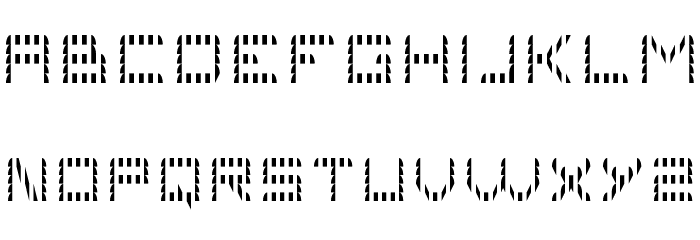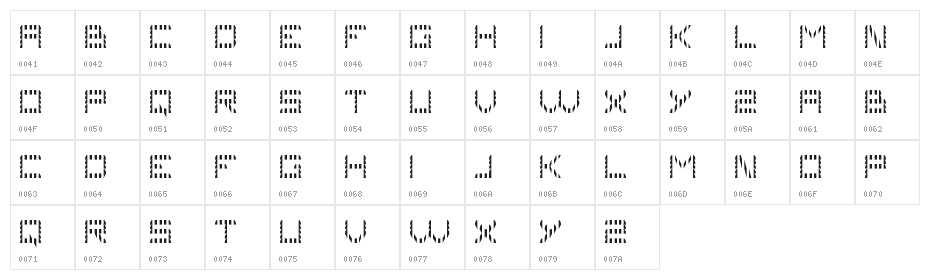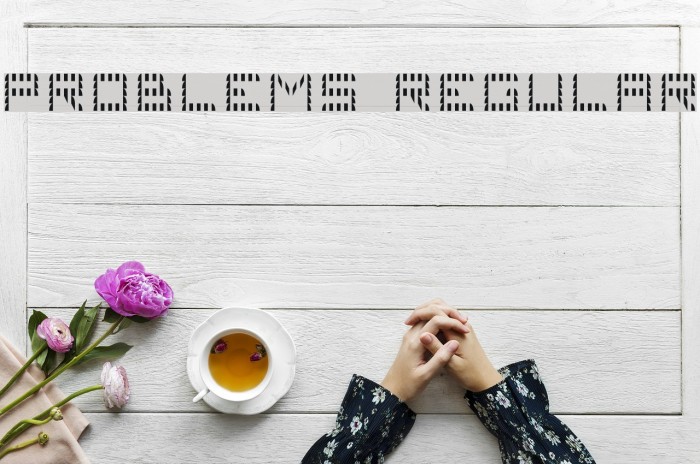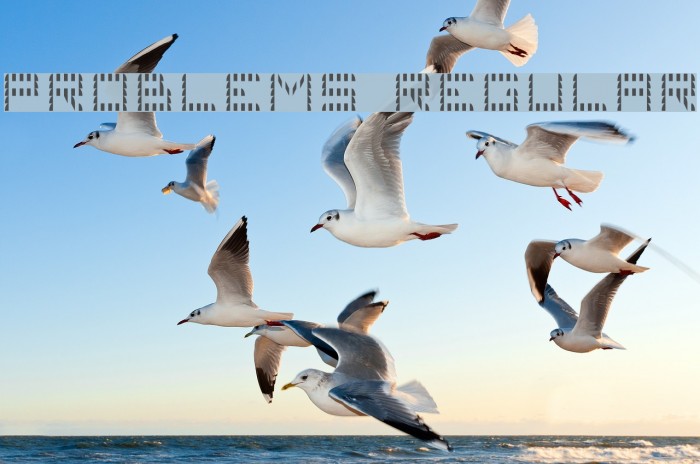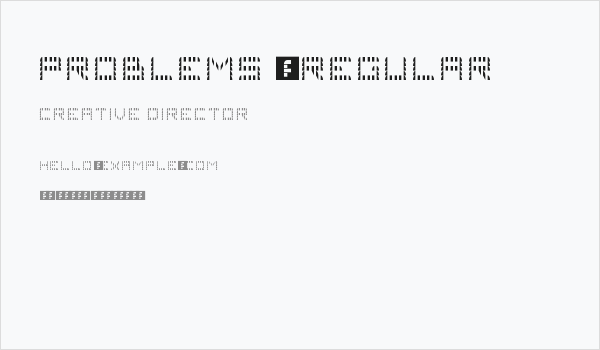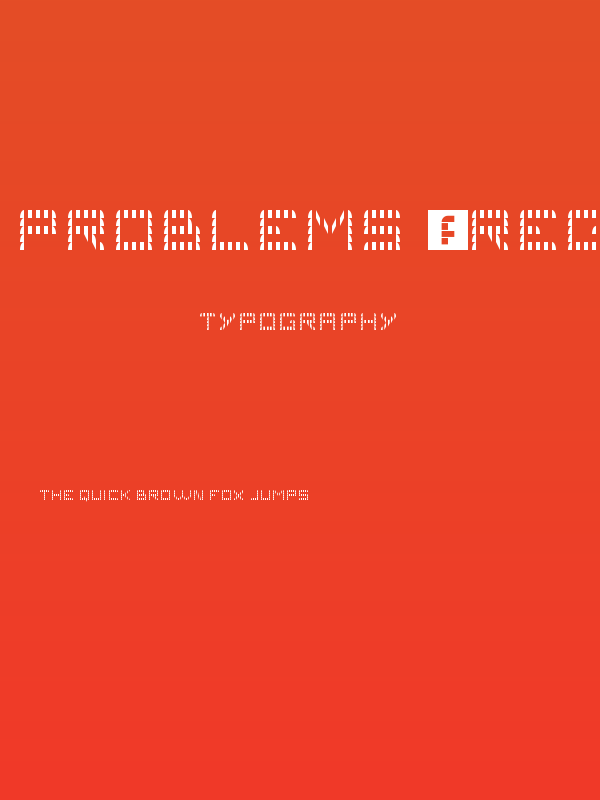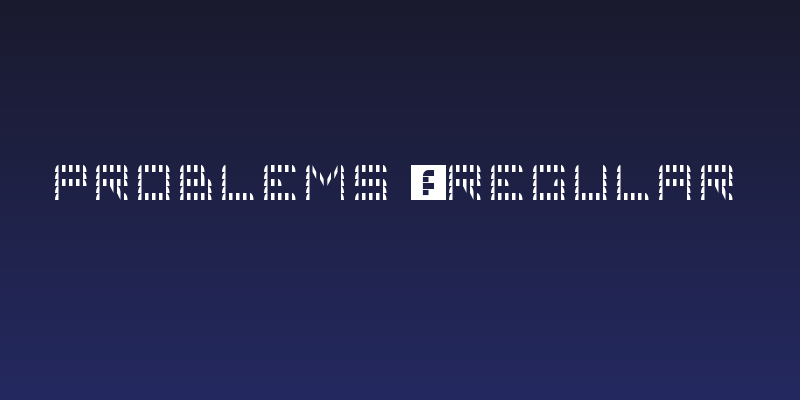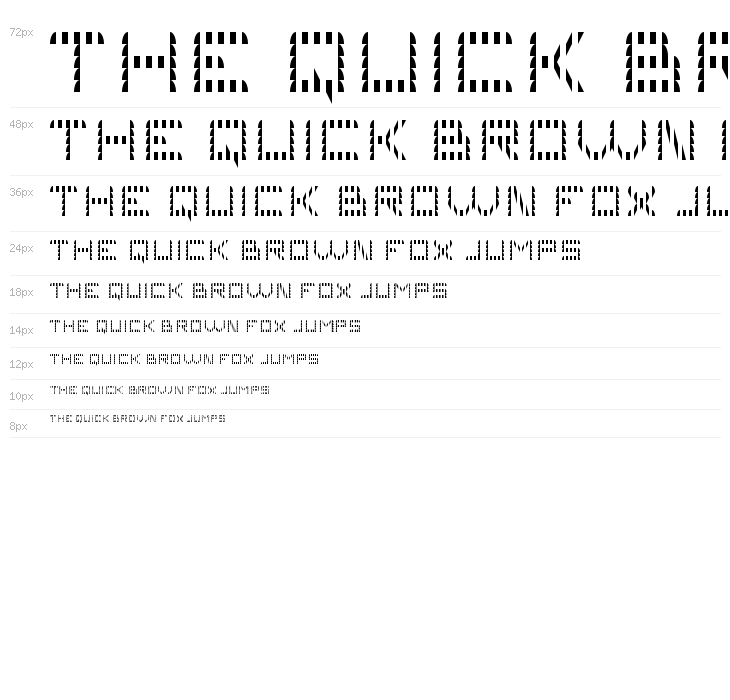
Problems 3 Regular Font
Problems 3 Regular Description
This font features a unique, segmented design that gives each character a distinct, modern appearance. The letters are composed of evenly spaced vertical lines, creating a digital or futuristic aesthetic. This style is consistent across uppercase, lowercase, numbers, and special characters, maintaining a cohesive look. The font's geometric structure and uniform line thickness contribute to its bold and eye-catching presence. It's particularly suitable for projects that require a modern and innovative touch, such as technology branding, digital interfaces, or creative posters.
| Proposed Projects | Ideal for technology branding, digital interfaces, creative posters, and modern advertising. |